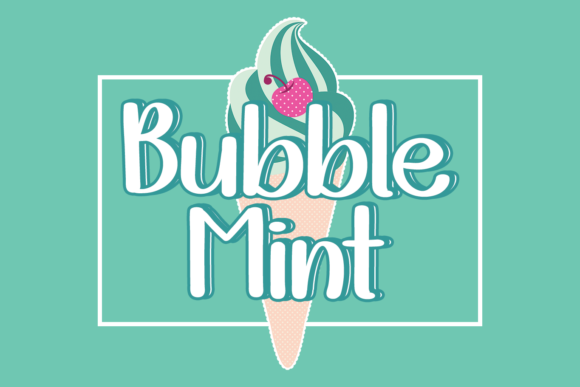
Step into the world of charm and elegance with Bubble Mint Font, a breathtaking handwritten font that will captivate your designs. Immerse yourself in its whimsical and relaxed aura, where each letter dances with a unique and well-rounded flair. This masterpiece of a font is a true artist's delight, ready to transform your creative visions into stunning realities.
As a font designed with versatility in mind, Bubble Mint Font is the quintessential choice for a wide range of projects. Whether you're crafting beautiful blog posts, captivating social media posts, or mesmerizing logos, this font will effortlessly elevate your designs. Its graceful curves and playful personality add a touch of magic to every project, leaving your audience enchanted.
With Bubble Mint Font, you'll discover the boundless possibilities of creativity. Its enchanting personality shines through in every letter, adding a touch of whimsy and charm to your projects. Unleash your imagination and craft designs that exude a sense of effortless elegance, leaving a lasting impression on your audience.